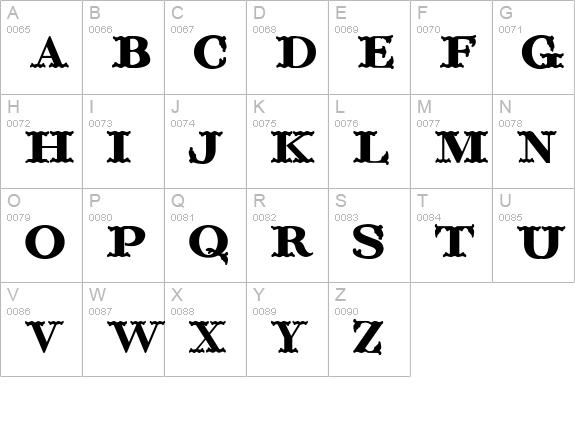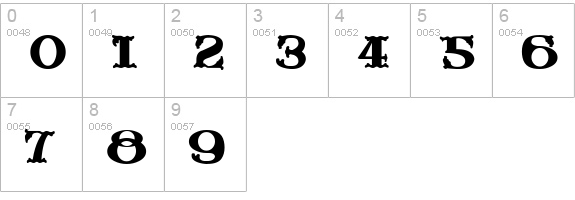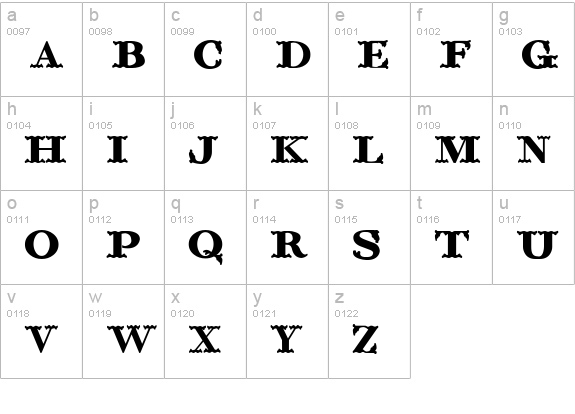
ChickenFarm Font Details
Introducing ChickenFarm font, a charming and rustic typeface that exudes warmth and simplicity. Inspired by the quaint charm of farm life, this font is perfect for adding a touch of homely appeal to your designs. With its playful curves and hand-drawn feel, ChickenFarm font is sure to bring a touch of whimsy to any project. Best of all, ChickenFarm font is available for free download at FontsMarket.com. Whether you're working on a cozy recipe card, a rustic wedding invitation, or a charming branding project, ChickenFarm font is the perfect choice for adding that extra bit of personality. So why wait? Download ChickenFarm font today and bring a touch of countryside charm to your designs.